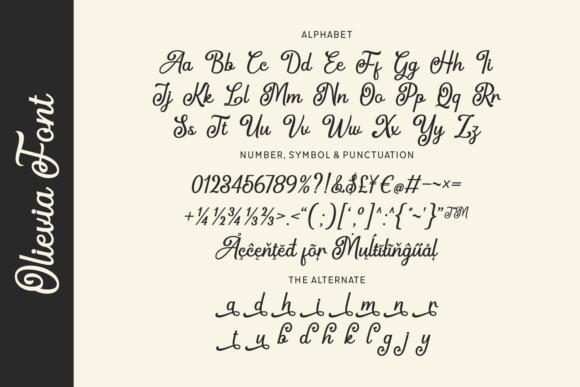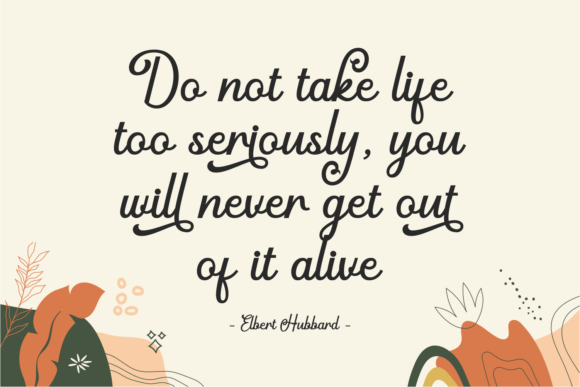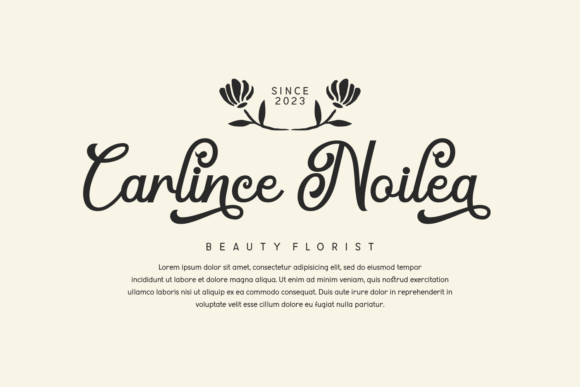
Introduction to Olievia Font
Have you ever been scrolling through social media, and a design catches your eye, making you stop and think, ‘Wow, I wish I could create something like that?’ That’s exactly what happened to me when I stumbled upon a stunning logo that stood out from the crowd. As I dug deeper, I discovered that it was designed using the Olievia Font, a modern script font that’s quickly becoming a design favorite among creatives.
What sets Olievia Font apart is its unique blend of smooth curves and playful swashes, making it a high-quality design resource for any creative project. Whether you’re working on a branding project, designing a logo, or creating eye-catching social media posts, this versatile font is sure to bring a modern flair with an elegant twist.
Key Features of Olievia Font
- High-quality design resource ideal for creative projects, with a unique, elegant aesthetic.
- Unique feature: transparent background, allowing for seamless integration with any design.
- Designed with precision, featuring a high resolution of 300 DPI for crisp, clear typography.
- Size: the font comes in a range of weights and styles, from Light to Bold, to cater to diverse design needs.
- Perfect for use in digital designs, including logos, branding, and web graphics, thanks to its versatility and high-quality design.
Honest Review: Olievia Font
As a designer, I’m always on the lookout for high-quality design resources that can elevate my creative projects. Recently, I had the chance to try out the Olievia Font, and I must say, it’s been a pleasant surprise.
- ✨ The font is incredibly versatile and can be used in a wide range of creative projects, from digital graphics to print materials.
- ✨ The transparent background makes it easy to work with, and the high-quality design ensures that the font looks crisp and clear, even at large sizes.
- ⚠️ The font may not be suitable for extremely small text sizes, as it can become difficult to read.
- ⚠️ Some users may find the font a bit too elegant for certain projects, requiring more rustic or edgy designs.
Overall, I’m impressed with the Olievia Font. It’s a high-quality design resource that can add a touch of sophistication to any creative project. While it may have some limitations, it’s definitely worth considering for designers looking for a versatile and elegant font.
Olievia Font is perfect for a variety of creative projects, including graphic design, digital art, and typography. Its transparent background makes it ideal for designing graphics with complex backgrounds, and its high-quality design ensures a professional finish.